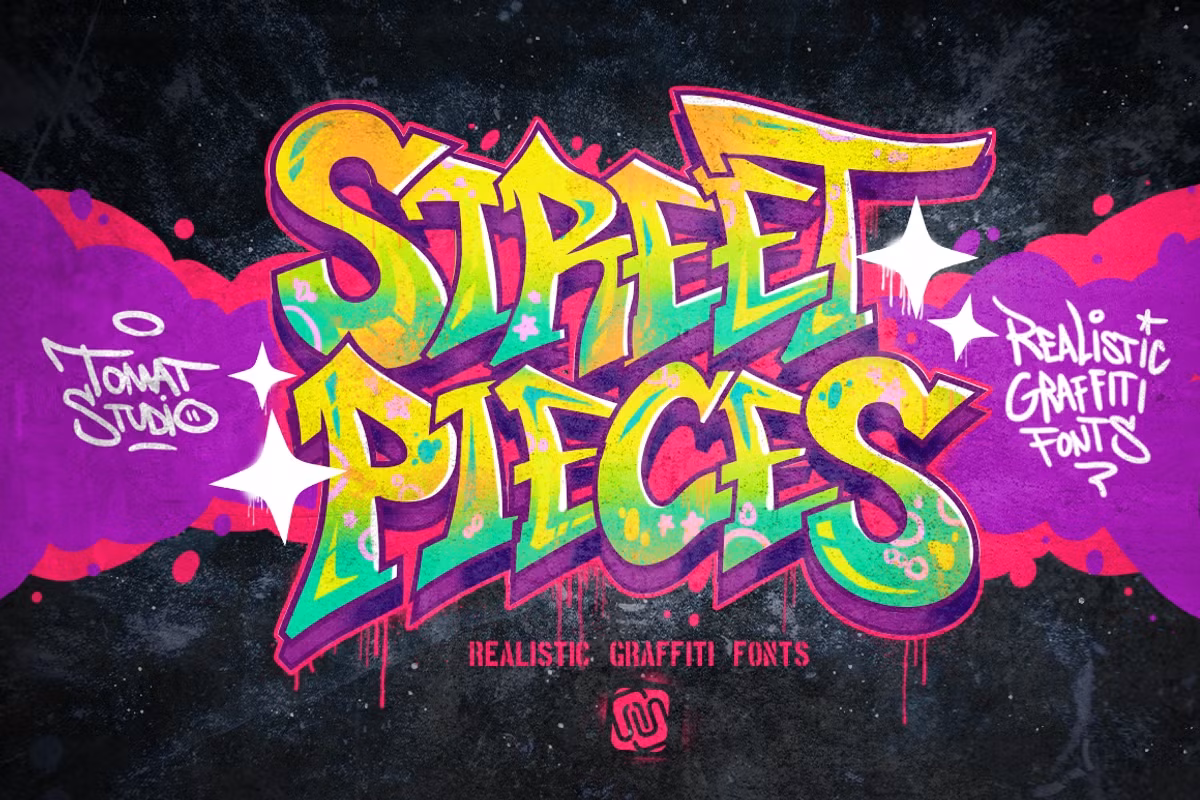
Graffiti Inspired | Street Pieces Font Free Download is a bold, urban typeface designed to bring the raw energy and creativity of street art to your designs. With its graffiti-style strokes and edgy, distressed look, this font is perfect for urban branding, music posters, streetwear designs, and anything that needs a rebellious and dynamic vibe. Its unique letterforms capture the spirit of street culture while maintaining legibility and style. Whether you’re creating a logo for a youth brand, an event flyer, or promotional content for a music release, Graffiti Inspired | Street Pieces Font Free Download lets you explore its bold design in personal projects before purchasing a commercial license. Add an authentic, gritty touch to your designs with this powerful and artistic font.